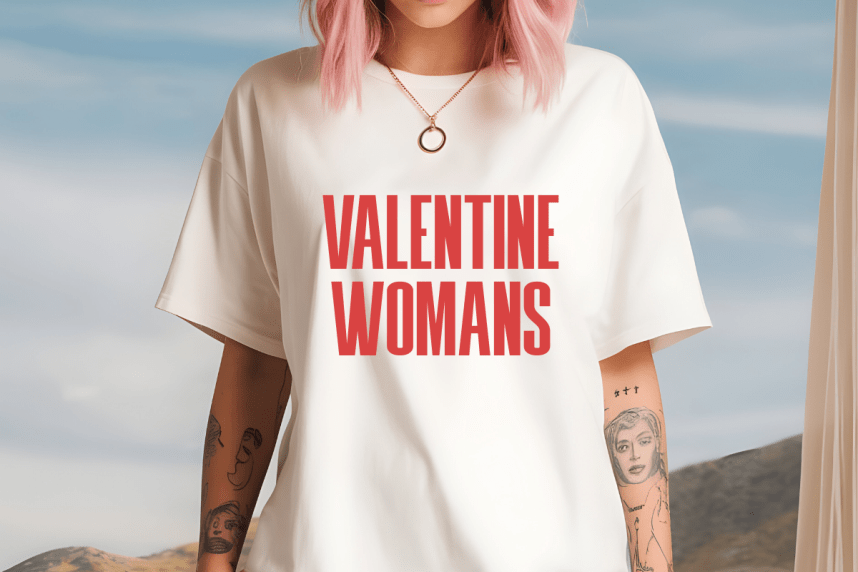
Modern Valentine Font
Modern Valentine Font. This unique Modern Valentine typeface strikes a beautiful balance between the nostalgic energy of mid-century advertising and the clean precision of contemporary design. Its condensed nature allows you to pack a lot of emotion into tight spaces, making it ideal for greeting cards, editorial headlines, and boutique packaging.
The Modern Valentine font feels both vintage and fresh, offering a “modern retro” vibe that works perfectly for fashion labels or lifestyle blogs. The slight irregularities and sharp terminals give it a hand-crafted feel while maintaining professional polish.
Enhance the Modern Valentine typeface by using it in bold, vibrant colors like crimson or soft pastels. It pairs beautifully with delicate script fonts to create a hierarchy that feels sophisticated and thoughtful.
From Valentine’s Day promotions to year-round luxury branding, this font brings a touch of class and character to every character.